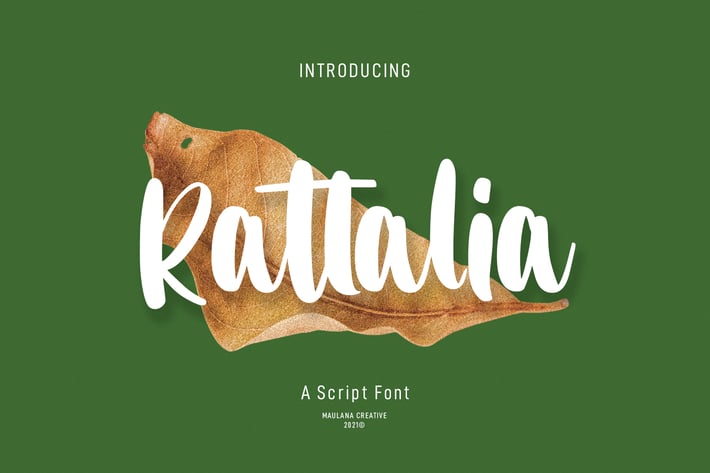
Rattalia Handwritten Font
Rattalia is simply cute handwritten font, with bold stroke, uprights and fun character. It has Opentype features ligatures of character, To give you an extra creative work. Rattalia handwritten font support multilingual more than 100+ language. This font is good for logo design, Social media, Movie Titles, Books Titles, a short text even a long text letter and good for your secondary text font with sans or serif. Make a stunning work with Rattalia font.